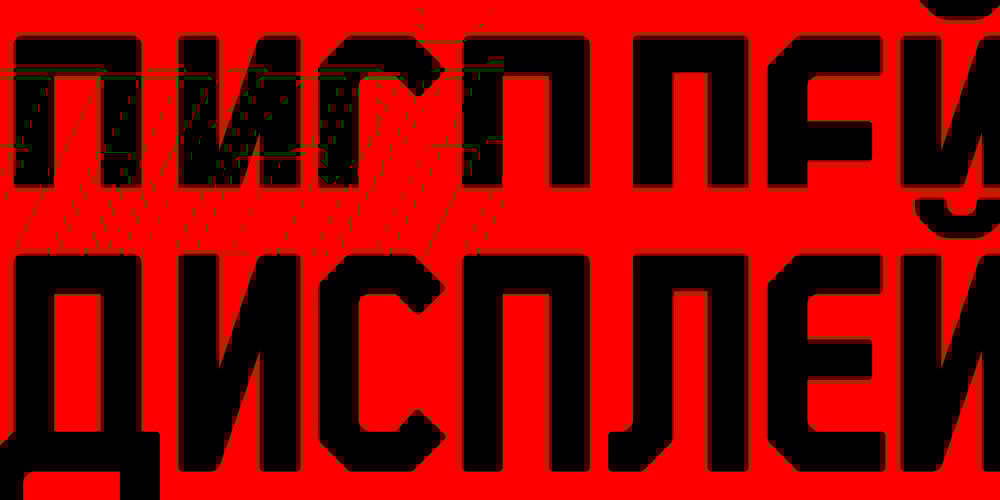
STP Display Cyrillic Font Family was designed by Anderson Ruda, Alexandre Ruda and published by Sete Std. STP Display Cyrillic contains 1 styles and family package options. Its inspiration comes from the types without serifs, with features ranging from architecture to modernist design products. With generous shapes and counterforms, the type becomes showy wherever it is, masterfully fulfilling the purpose for which it was designed. Initially designed for a signaling project in the Brazilian city of Jaraguá do Sul, Santa Catarina, the STP Display was expanded to include the largest number of characters in the Cyrillic anda Latin alphabet. This helps to find solutions in cases where a large number of languages to communicate something is needed, such as to inform a specific place for a tourist or also a direction to follow for an employee in a company.The STP Display is a modular feature, developed with rounded corners and a design based on geometric elements, ideal for use in large sizes.Forms and counterforms, its main characteristics, bring prominence to any signaling project. The STP Display Cyrillic also has another version, the STP Stencil Cyrillic, and in addition to wayfinding projects, both can be used in architectural projects, advertising, packaging, posters, and others.With a complete Latin alphabet, STP Display Cyrillic covers over 90% of the supported languages, covering the whole American continent, East and West Europe and most of the countries of Africa, Asia and Oceania.